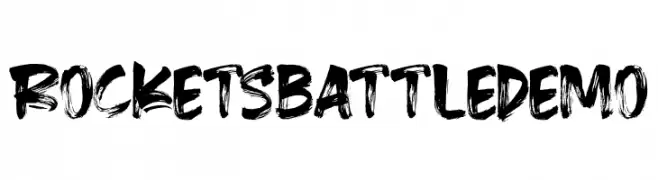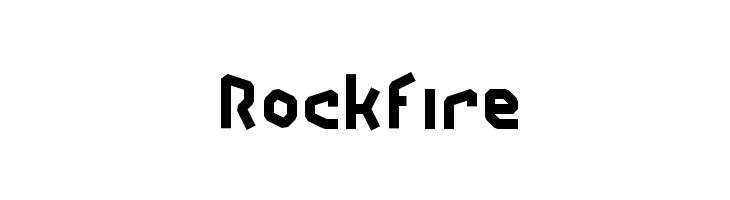
A bold, brushstroke font with a dynamic and textured style.
A bold, distressed font with a rugged, vintage appearance.
Elegant handwritten script font.
An elegant, flowing script font with a sophisticated cursive style.
A lively and elegant script font with fluid, cursive strokes.
A playful, hand-drawn font with bold, sketch-like outlines.
A sleek, geometric font with thin lines and a modern aesthetic.
A sleek, geometric font with a futuristic and minimalist design.
A playful, casual handwritten font with smooth, flowing lines.
A bold, angular font with a geometric and edgy design.